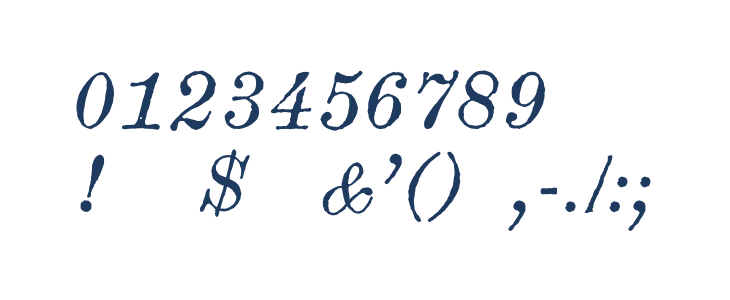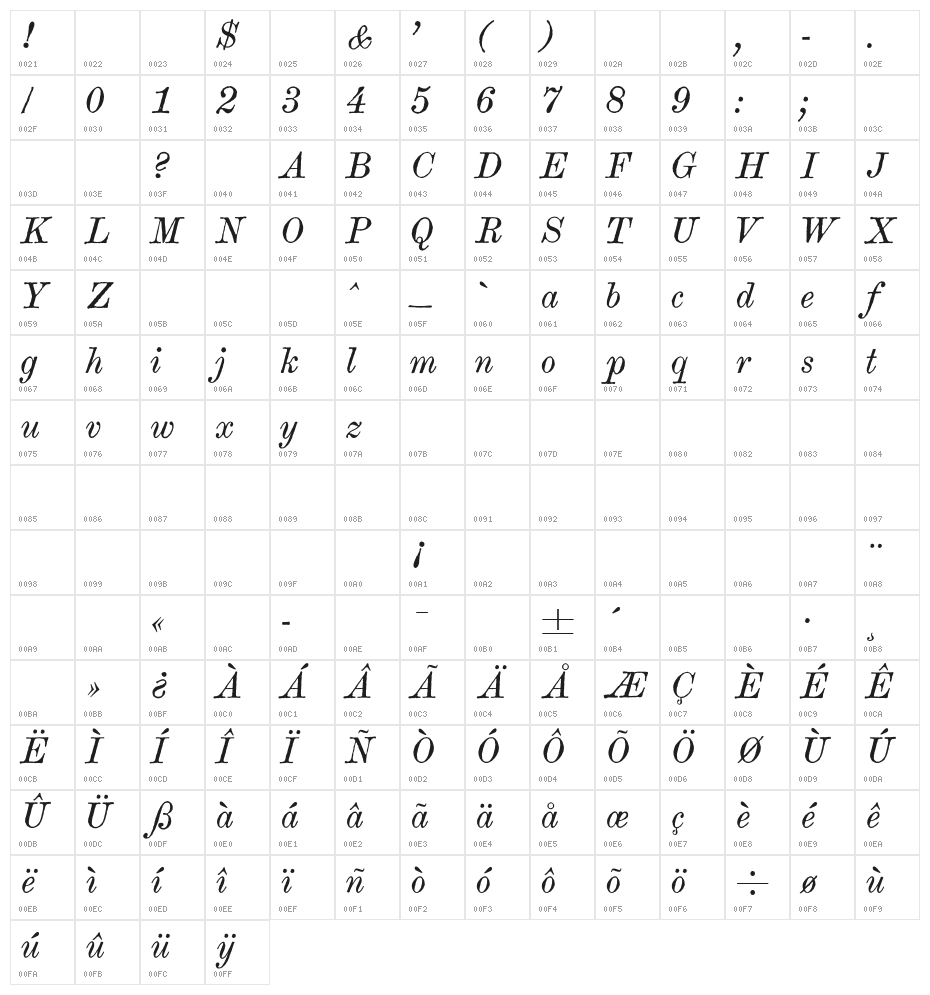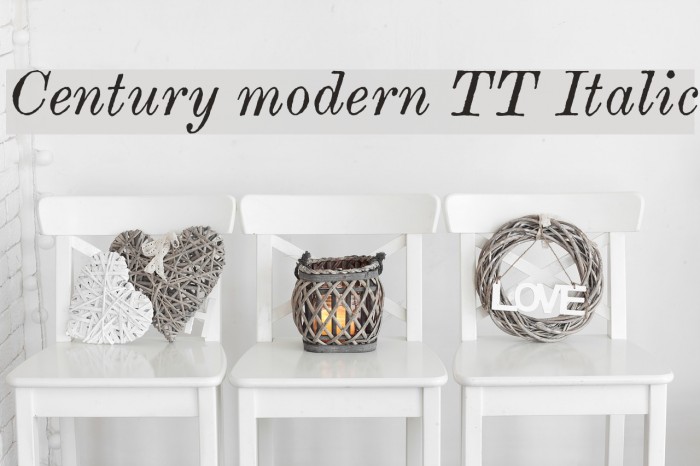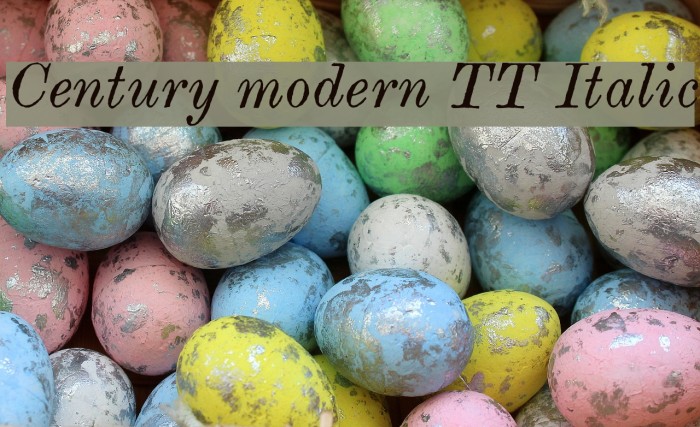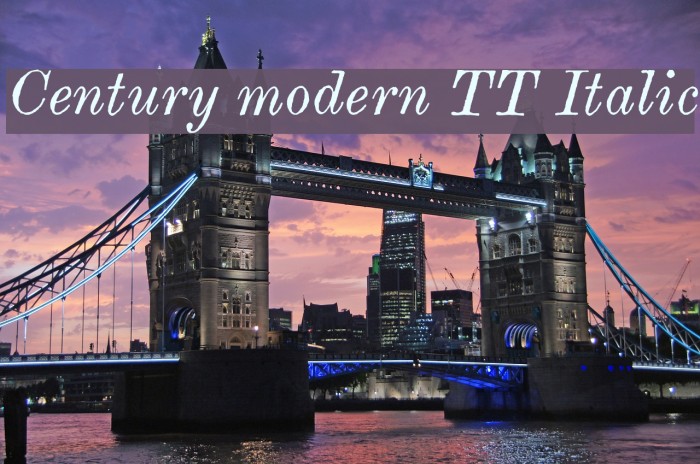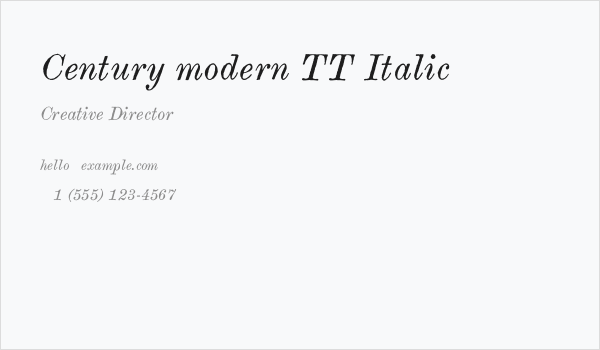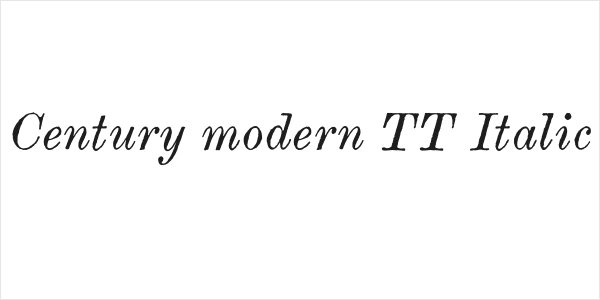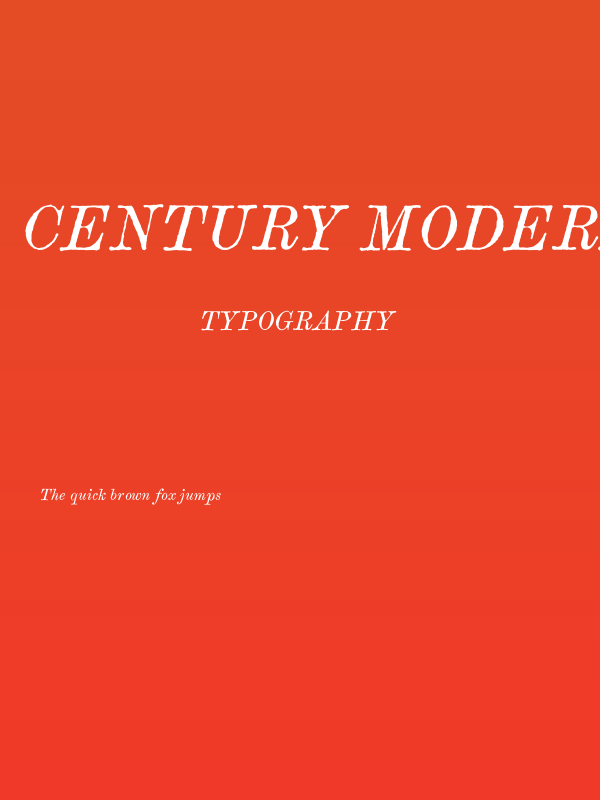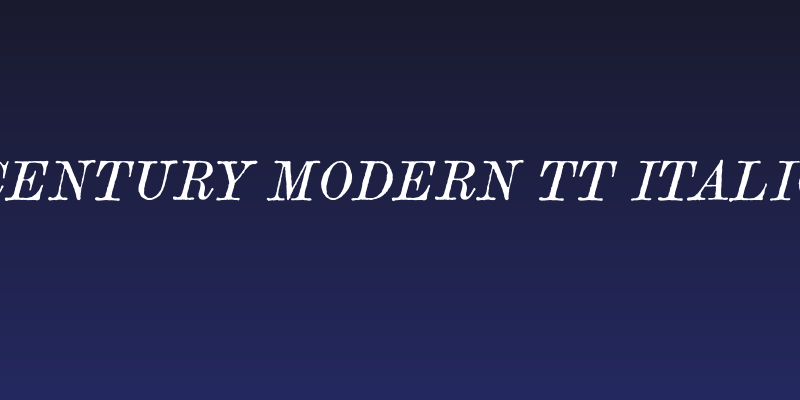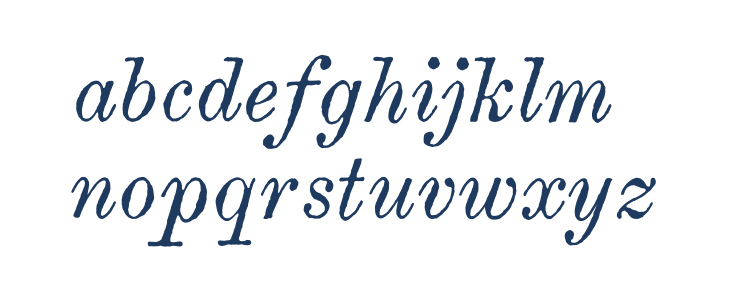
Century modern TT Italic Font
Century modern TT Italic Description
This font exhibits a classic elegance with its italicized form, characterized by smooth, flowing lines and a slight slant to the right. The uppercase letters are bold and prominent, while the lowercase letters maintain a graceful and fluid appearance. The numerals are distinct and easy to read, with a consistent style that complements the alphabetic characters. The special characters are well-integrated, maintaining the overall aesthetic of the font. This typeface combines traditional serif elements with a modern twist, making it versatile for various design applications.
Overall StyleClassic